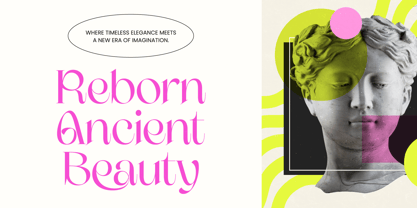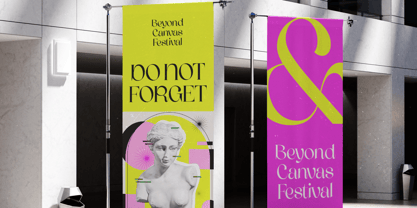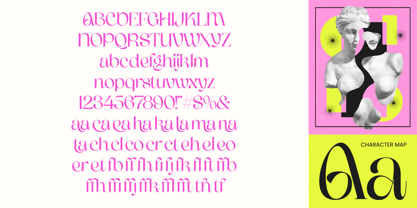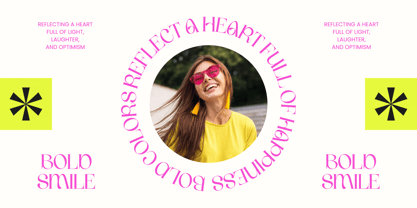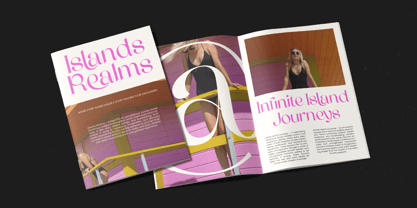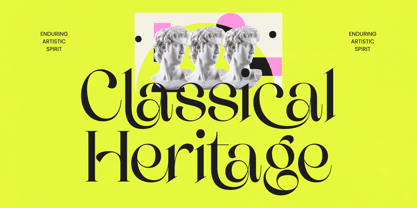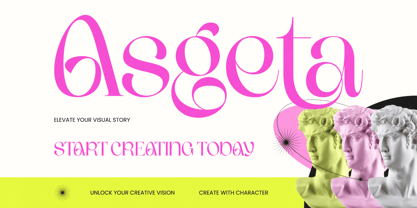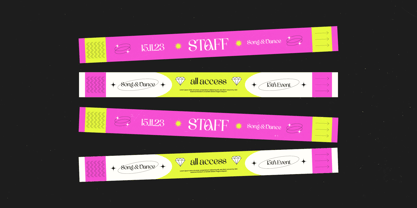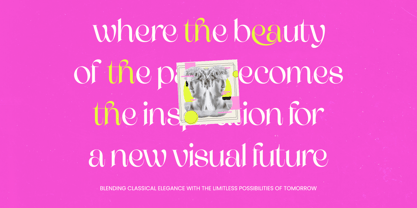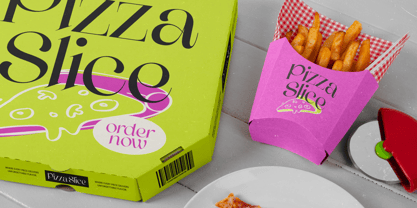
The Asgeta Font Family was designed by Heru Utama Putra and published by Timelesstype Studio. Asgeta contains 2 styles and family package options. More about this family
Elevate your design projects with a typeface that embodies sophisticated elegance and contemporary flair. Asgeta - Modern Serif Display is a masterclass in balance, merging high-contrast strokes with fluid, artistic curves to create a striking visual presence. This font is designed to capture attention immediately, making it an essential tool for designers seeking to convey a sense of luxury and refinement in their creative compositions.
Asgeta